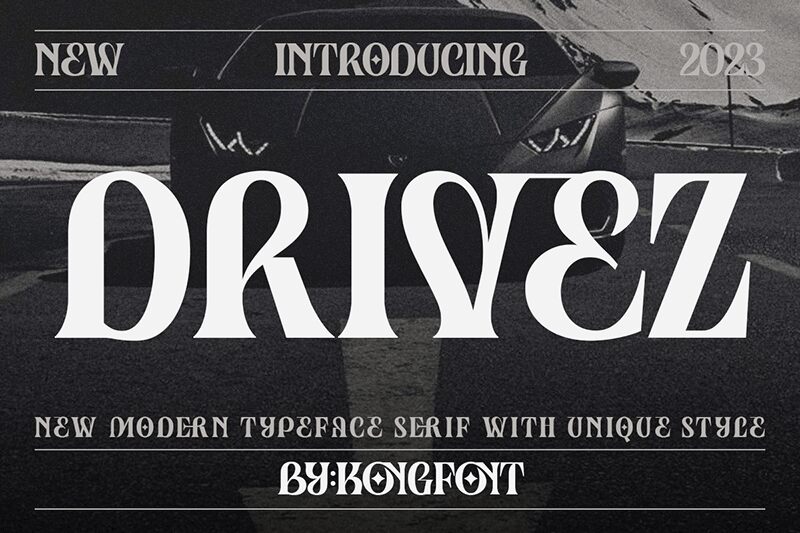
Drivez font by Kong Font is a free font that embodies a sense of modern style. With dramatic curves and a dynamic presence, it brings a sleek aesthetic with a contemporary twist. Sophisticated and elegant yet bold in character, it carries retro influences that make it both timeless and fashionable. This typeface promises a striking addition to any design project, carrying with it an unmistakable flair.
Drivez is suitable for a wide range of creative projects such as headlines, branding, fashion design, posters, magazine layouts, product packaging, invitations, book covers, and other advertising materials. Its versatile and eye-catching design ensures that your message will stand out.